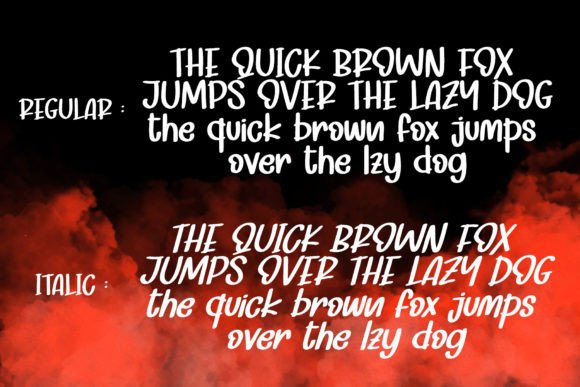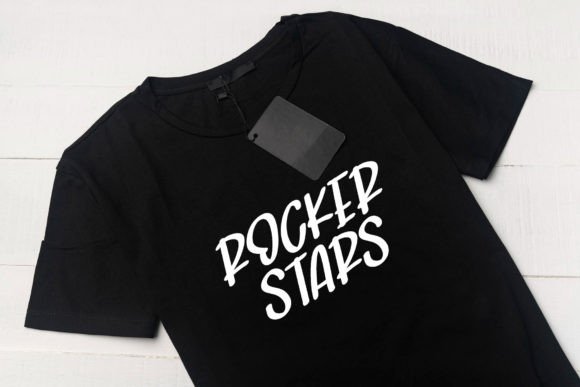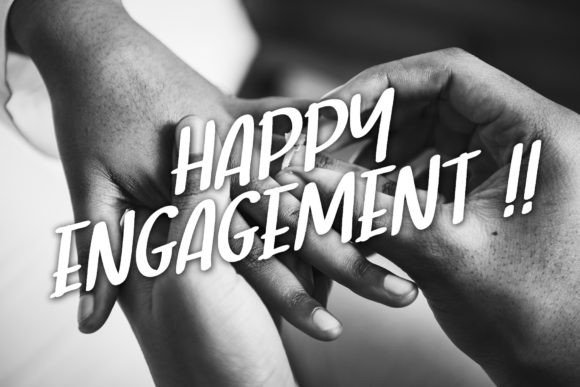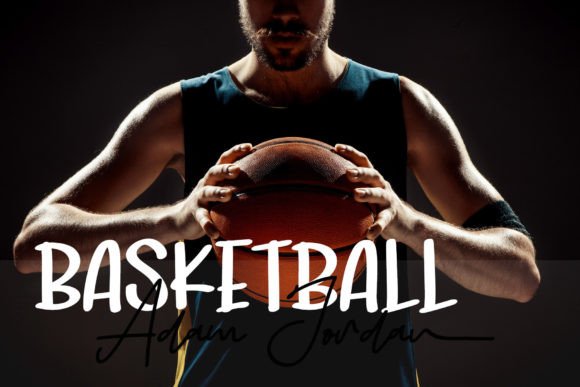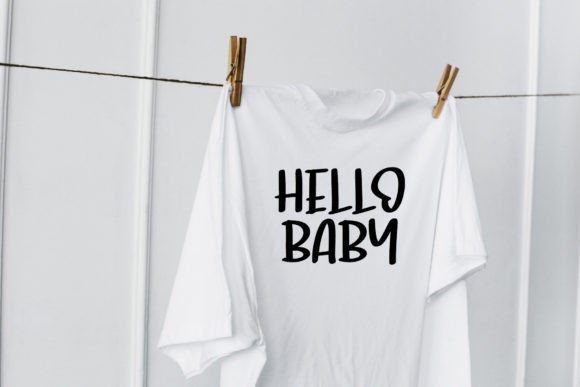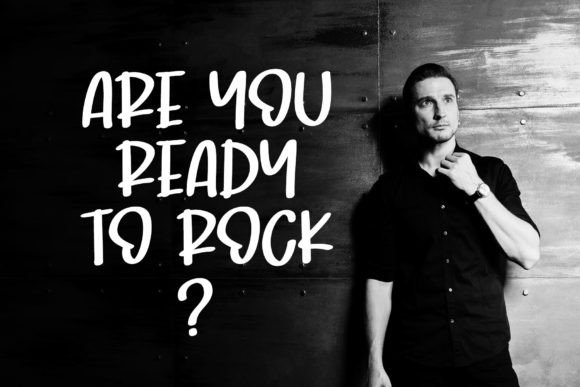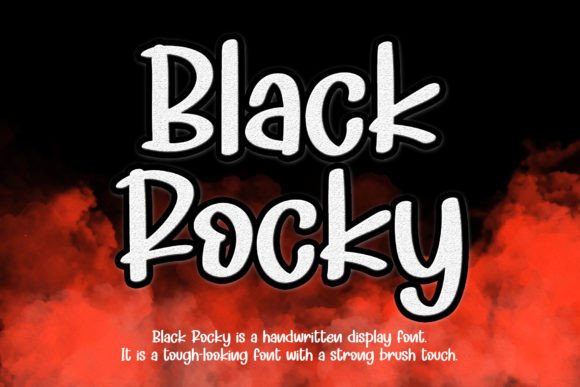
The Power of Black Rocky Font: Unleashing Creativity in Your Designs
I’ll never forget the time I was working on a project for a client who wanted a bold, eye-catching logo that would make their brand stand out. I had tried countless fonts, but nothing seemed quite right. That was until I stumbled upon Black Rocky Font. With its tough, brush-like texture and strong personality, it was the perfect fit. In this article, I’ll share my experience with Black Rocky Font, its features, and how to make the most of it in your designs.
I’ve had the pleasure of working with Black Rocky Font on several projects, and here’s what I think:
- ✨ Instant Impact: Black Rocky Font makes a statement. Its bold, handwritten style is perfect for grabbing attention and adding a touch of edginess to your designs.
- ✅ Versatility: This font is incredibly versatile. Use it for logos, quotes, posters, clothing, and more. Its flexibility is one of its greatest strengths.
- 💯 Ease of Use: Black Rocky Font is easy to work with, even for those who aren’t font experts. It’s compatible with most design software, making it a great addition to your font library.
While Black Rocky Font is an excellent choice, it’s not without its quirks:
- 🤔 Legibility at Small Sizes: While it’s stunning at larger sizes, Black Rocky Font can be a bit tricky to read at smaller sizes. Be mindful of this when choosing font sizes for your designs.
- ⚠️ Limited Formality: Due to its bold, casual nature, Black Rocky Font might not be the best fit for very formal or traditional designs.
The Story Behind Black Rocky Font
Black Rocky Font was designed with the creative rebel in mind. Its creator, a passionate typographer, wanted to craft a font that would inspire designers to push boundaries and challenge the status quo. With its bold, expressive style, Black Rocky Font is the perfect tool for anyone looking to add a touch of attitude to their designs.
| Author | Letterafa Studio |
| What type of designs is Black Rocky Font best suited for? | Black Rocky Font is perfect for bold, eye-catching designs such as logos, posters, clothing, and quotes. |
| Is Black Rocky Font suitable for body text? | While it’s possible to use Black Rocky Font for body text, it’s not recommended. Its bold style is better suited for headings and titles. |
| Does Black Rocky Font come with OpenType features? | Yes, Black Rocky Font includes OpenType features such as stylistic alternates and ligatures. |